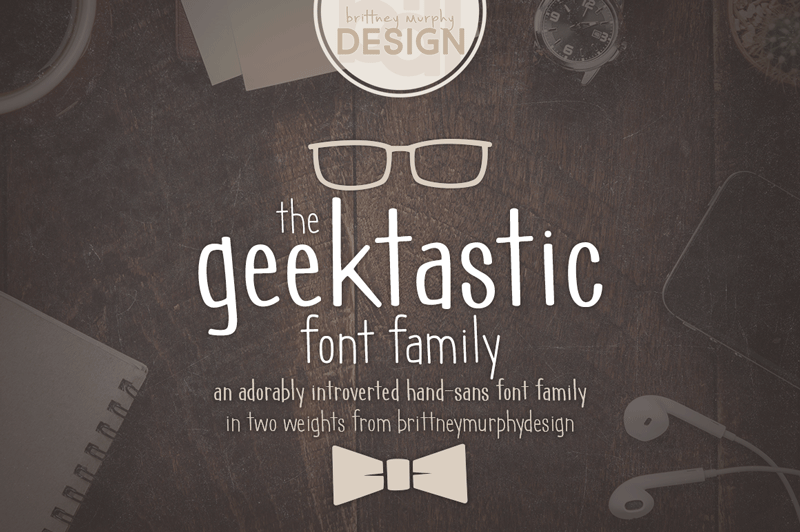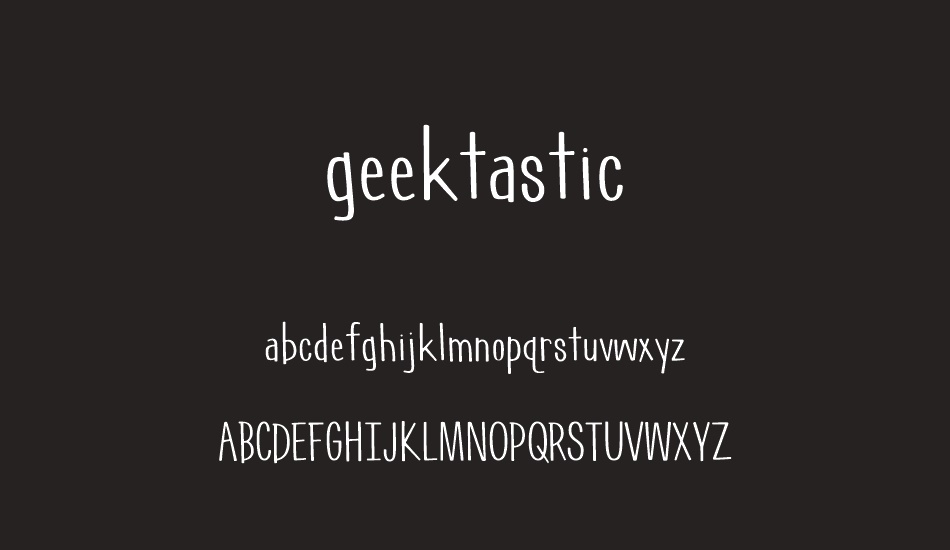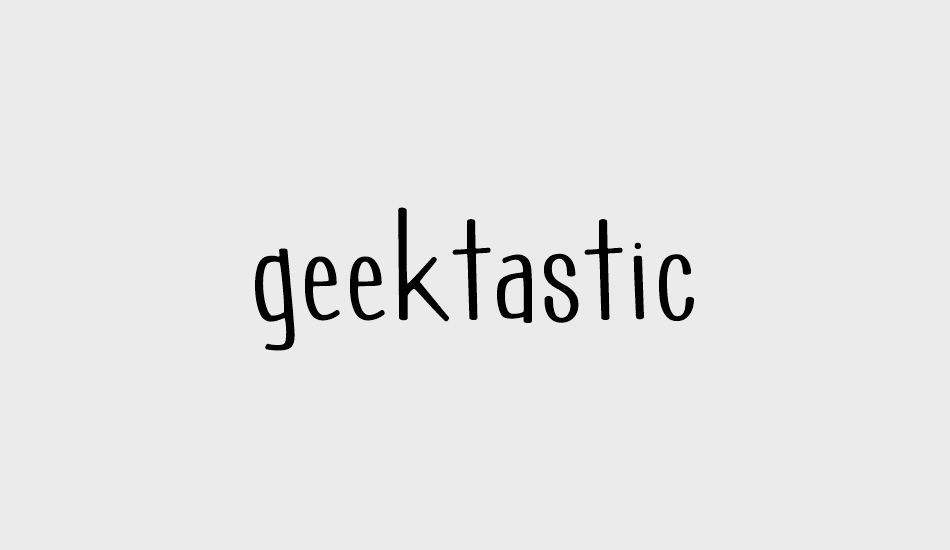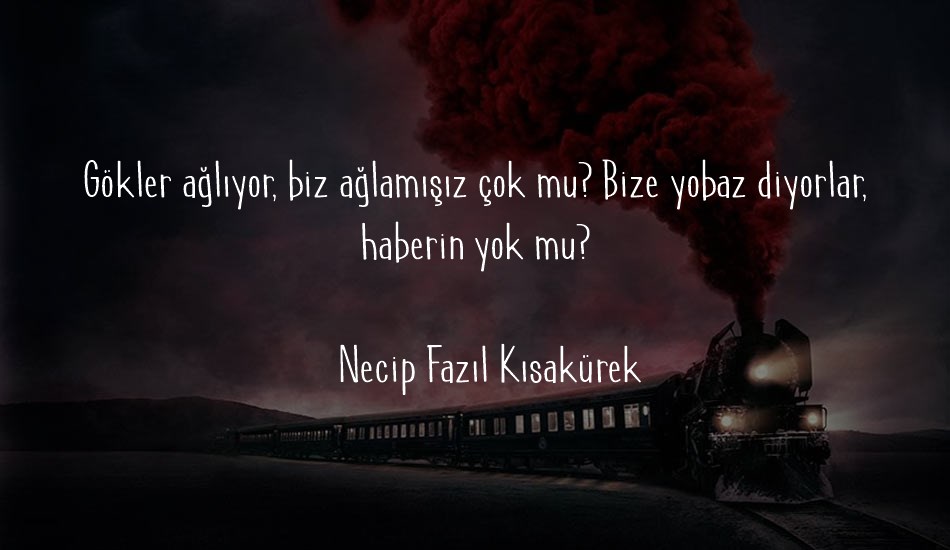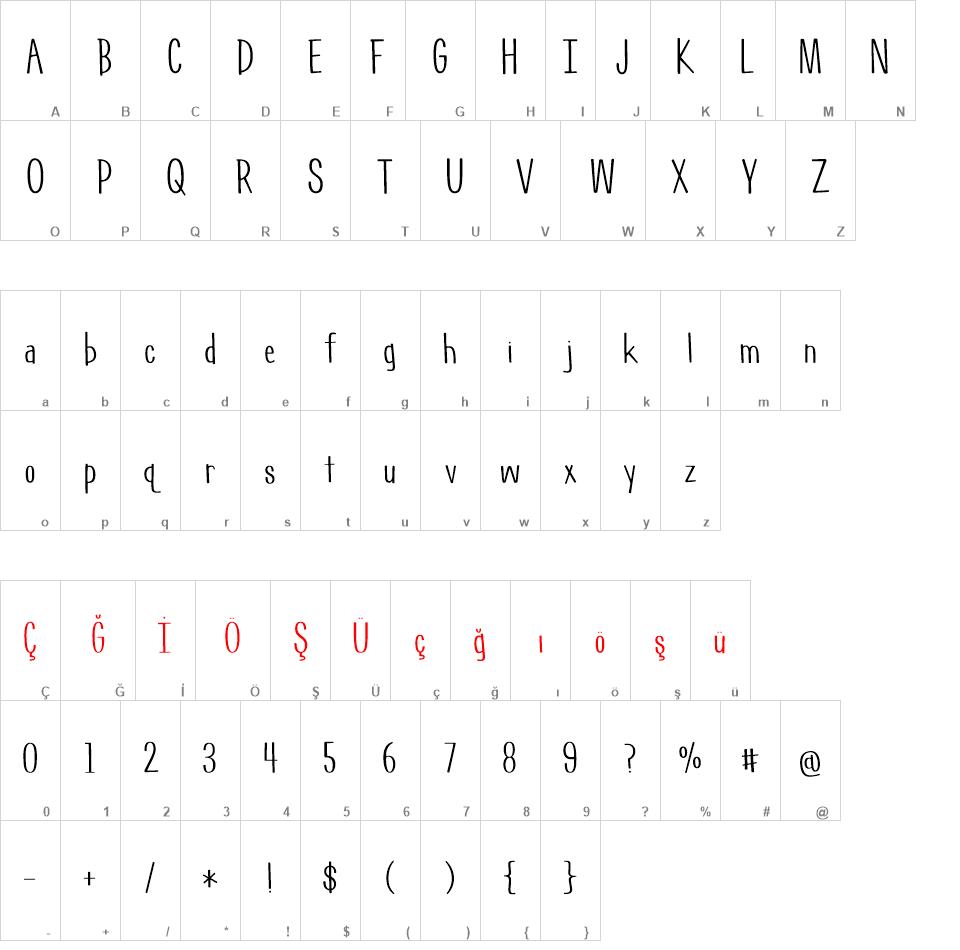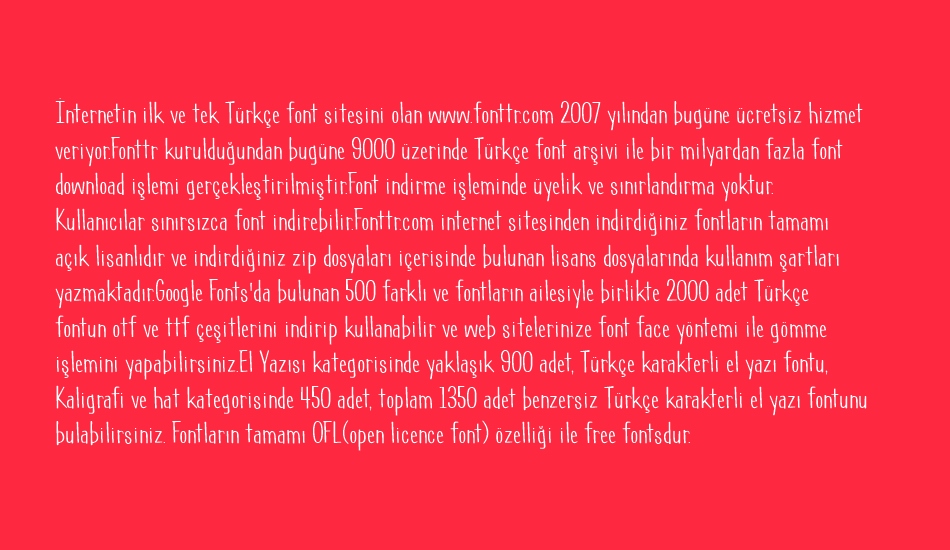
Geektastic
Geektastic is a tall and lanky, adorably introverted hand-sans in two weights- regular and skinny. It’s quirky, yet understated, and even comes with an ‘accessories font’ with five characters- 3 bowties and two sets of glasses.
Includes 366 characters, with lots of accented letters.